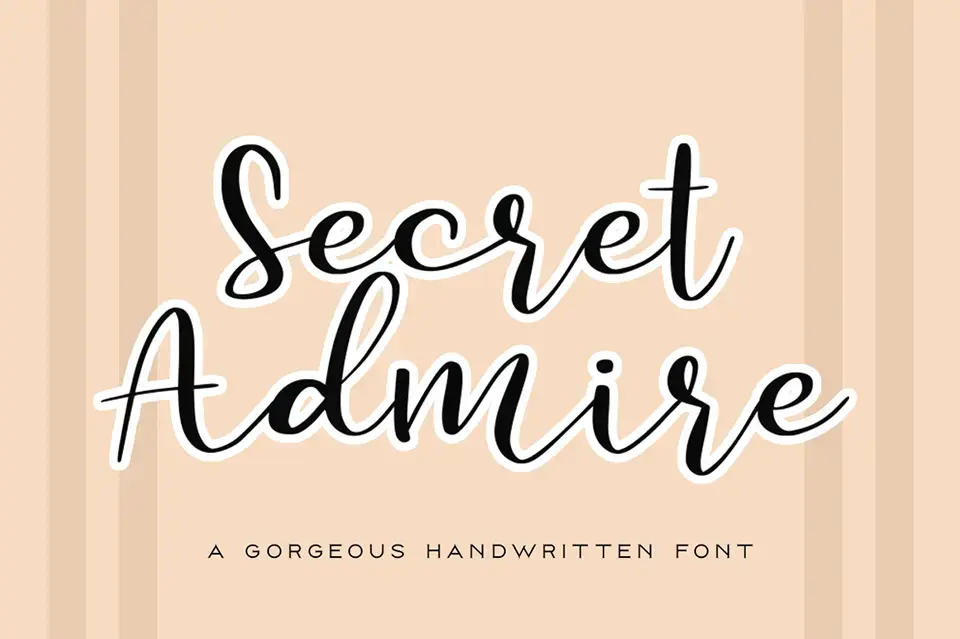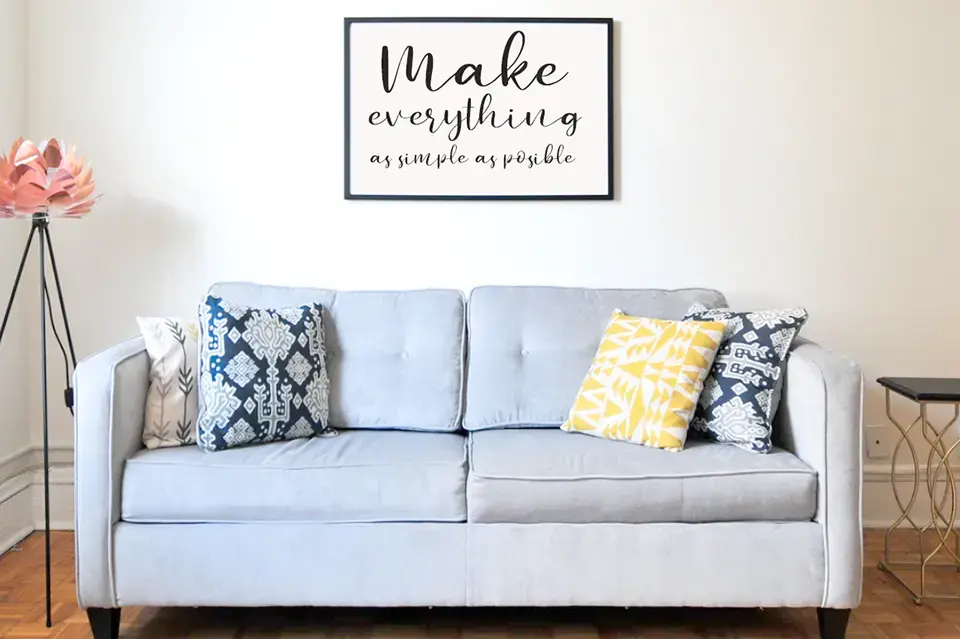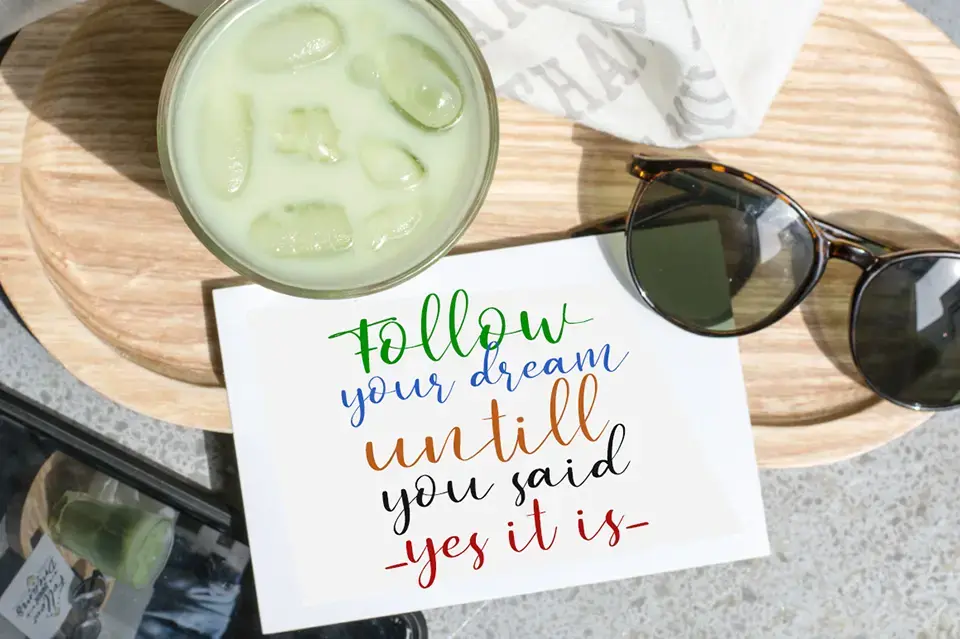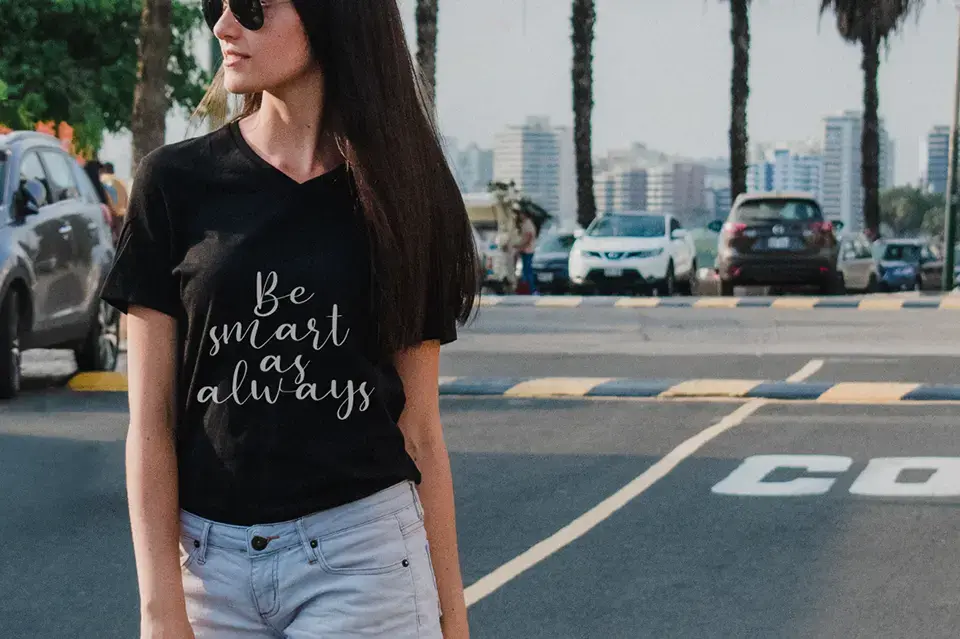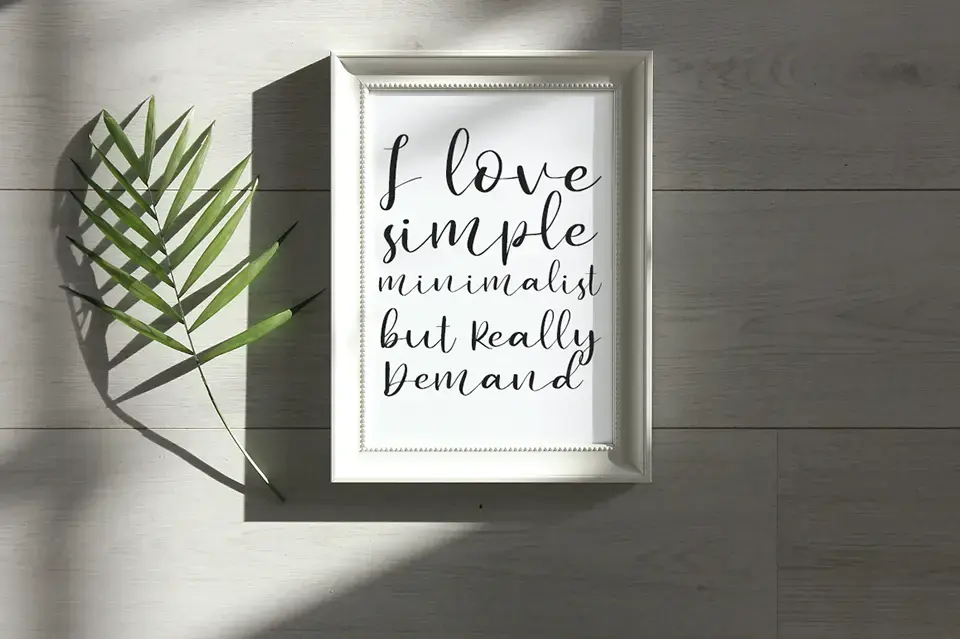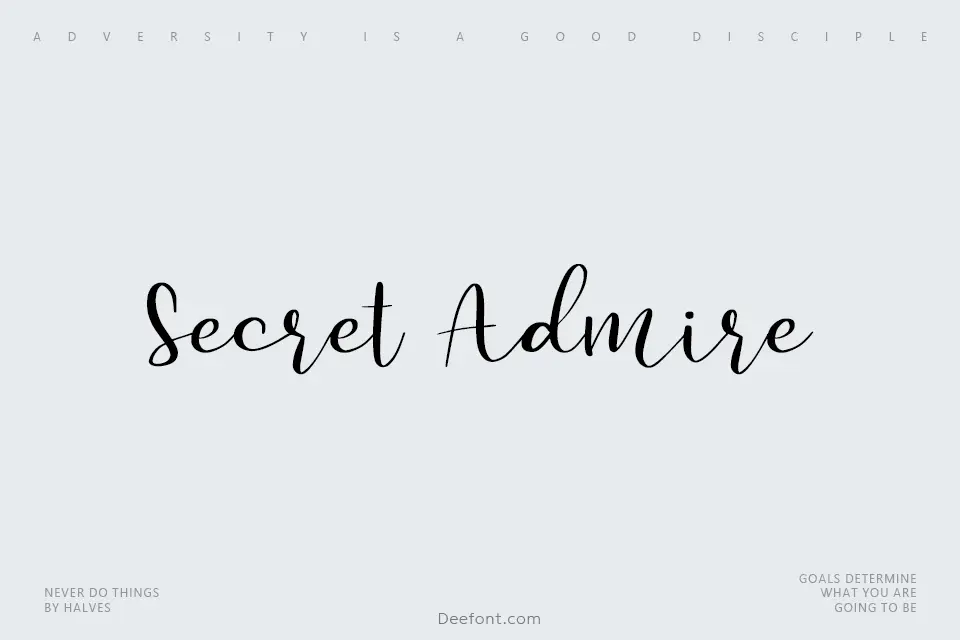
Secret Admire Font
Secret Admire is a delightful and casual handwritten script font that captures the essence of spontaneous penmanship. Designed with smooth curves and a bouncy baseline, this typeface exudes a romantic and playful atmosphere. It is an excellent choice for designing wedding invitations, affectionate greeting cards, signature-style logos, and social media quotes, bringing a warm, personal touch to any creative project.